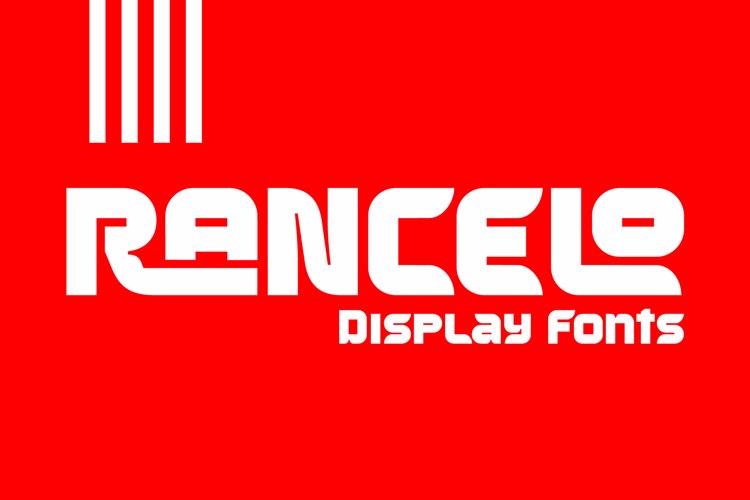
Rancelo Font
Rancelo is a powerful and striking Display Fonts typeface designed to make a memorable impact . With its bold, futuristic curves and distinct style, Rancelo is perfect for projects that demand attention and a modern, creative edge.